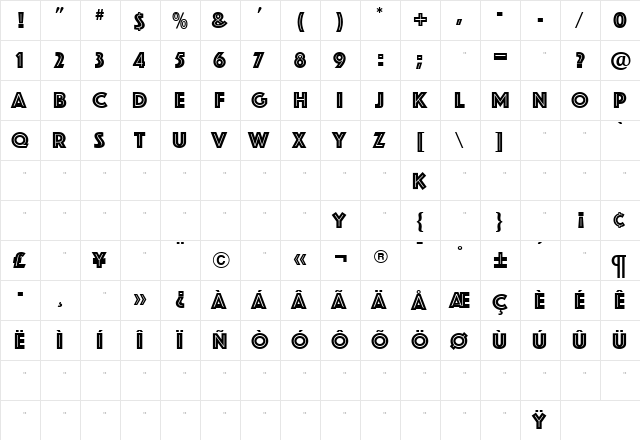
PhosphateInline Roman
Design Context for PhosphateInline Typeface
PhosphateInline brings ornamental detail and strong personality to headlines and identities, where visual impact matters more than quiet functionality.
Font Pairing: Pair with a clean neutral sans-serif for body copy to let PhosphateInline's character lead without overwhelming the composition.
Pro Tip: Treat PhosphateInline as the centrepiece of your typographic hierarchy. One strong heading set in a decorative face can carry an entire layout.